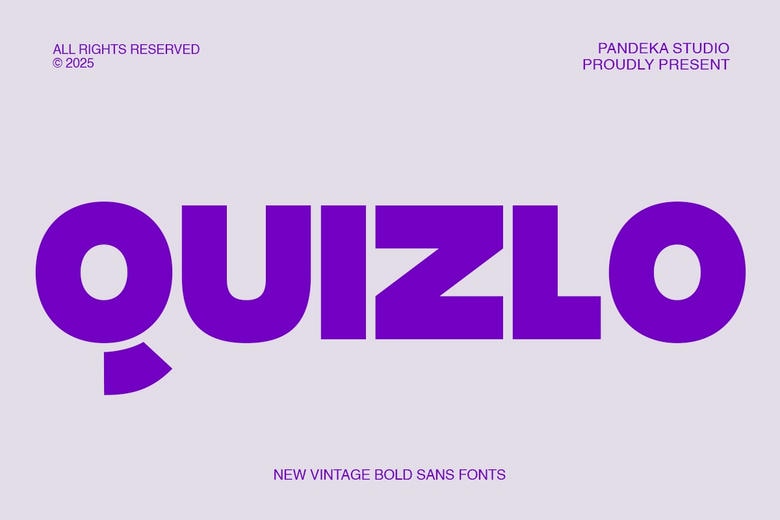
Quizlo is a bold and playful sans-serif font designed to attract attention and add fun and taste into the food branding. The plump, round letterforms add an affable face and a delicious bold look to it, so it matches the food industry perfectly well.
Quizlo is an ideal fit in restaurant logos, menus, packaging, food products, social media and advertising, and it conveys joy, creativity and appetites. The font is also very effective in both print and digital work with its simple but impressive Regular style.
Quizlo Sans Serif Font